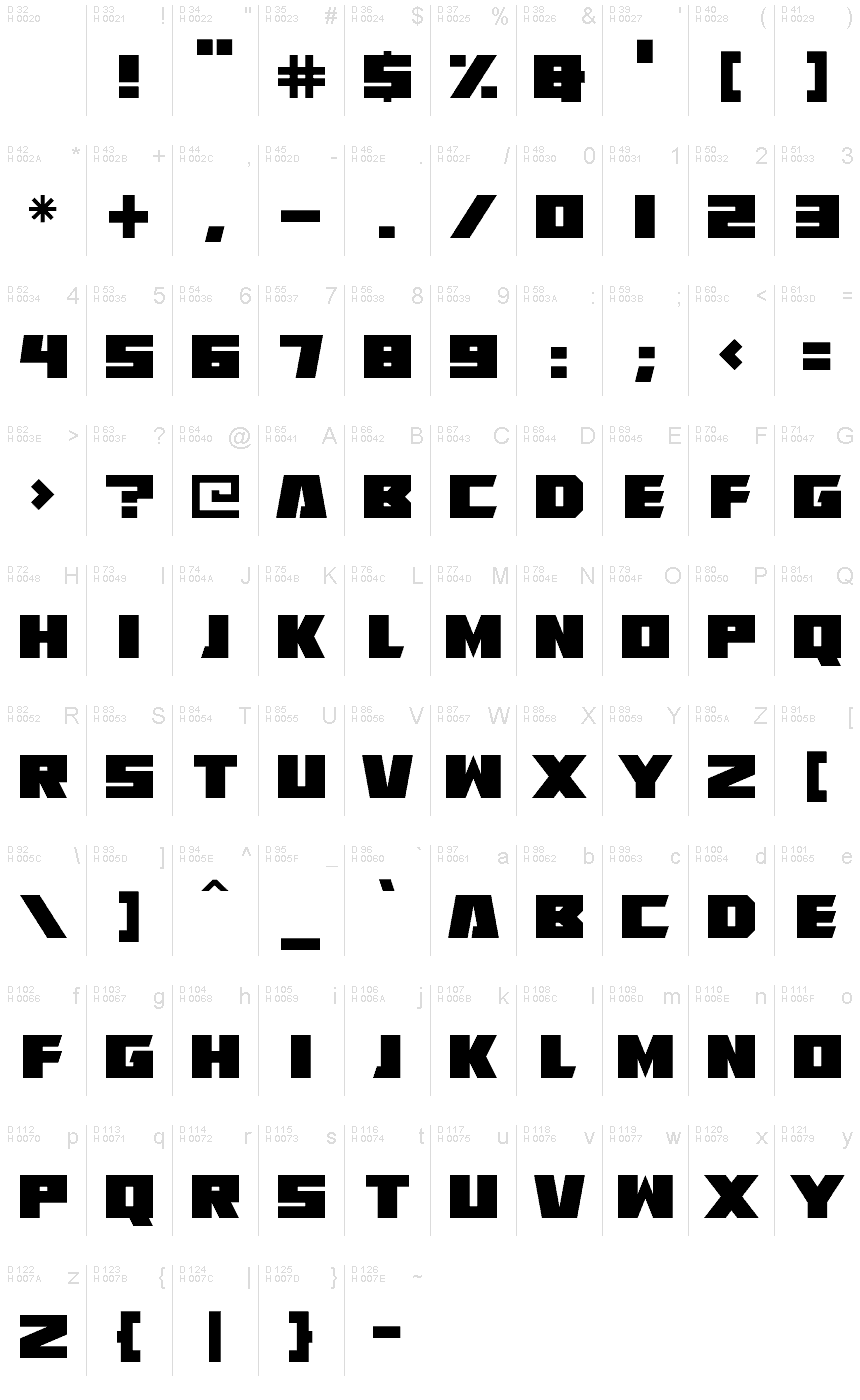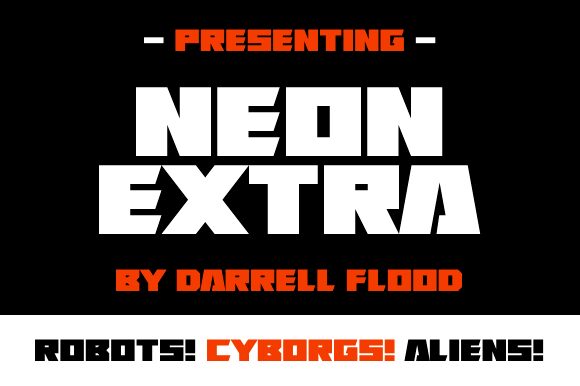
Neon Extra
Neon Extra font is a bold futuristic display typeface from Hawtpixel with geometric and angular characters. The expanded width makes this modern font much more eye-catching, giving it a presence that’s hard to ignore. Inspired by the aesthetics of the future, it can suit your design projects wonderfully.